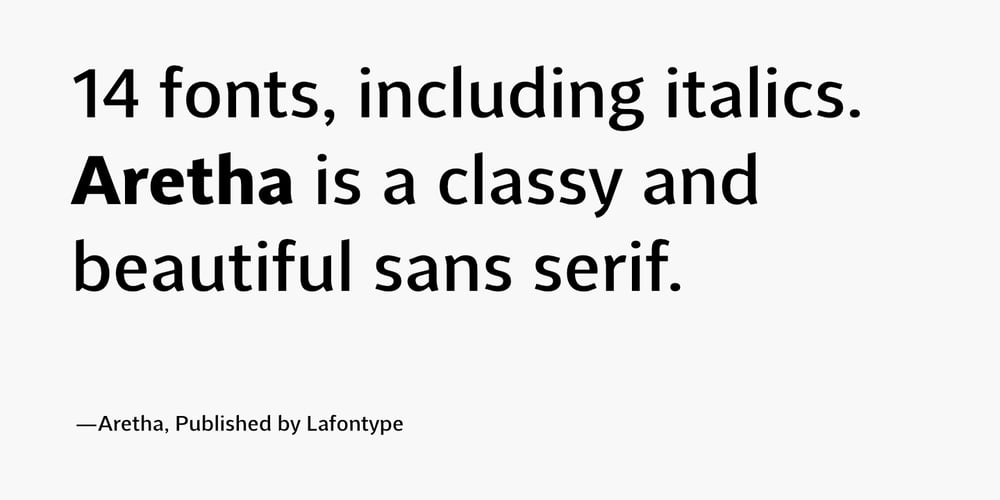
Aretha
Aretha font
Aretha Font Family was designed by Anugrah Pasau and published by Lafontype. Aretha contains 13 styles and family package options. Aretha is a classy and beautifully designed sans serif. The main idea of Arteha is to combine the sans serif humanist font style with traditional styles so as to provide a pleasant atmosphere for the reader.The horizontal side of Aretha is designed with a slightly thinner so that the counter can look wider and also looks stiff in some parts to give a firm impression on the letters.Not only for display size, Aretha also works well in text size. Represents multilingual and is equipped with several Open Type features such as tabular figures and stylistic alternates in letters a, g, t and y, so this is very suitable to complement your various design needs.